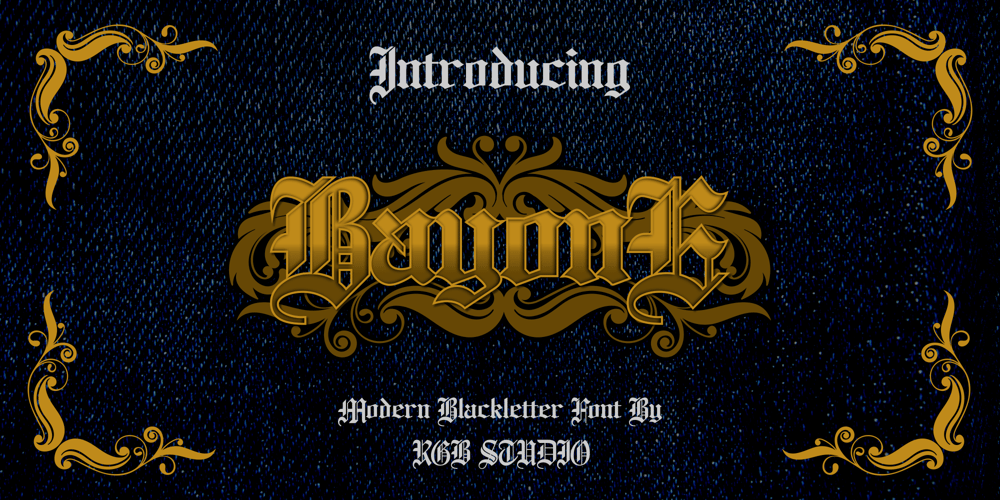
Bayone
Bayone font
Bayone Font Family was designed by MOH. MA’IN and published by RGB Studio. Bayone contains 1 styles and family package options. Bayone is a bold, distinct and elegant blackletter font. Add it confidently to your projects, and you will love the results. Bayone This font is made with references to various letters that I combine and design with my style. * Bayone are great and usefull for product logo, poster title, headline, packaging, badge, wedding card logo, clothing brand logo,Vintage design and much more Files Include : Basic Latin A-Z and a-z Numbers Symbols PUA Encode Multi-language Support Thanks and have a wonderful day, If you have any questions, please get in touch with usDon’t forget to check out our other products.